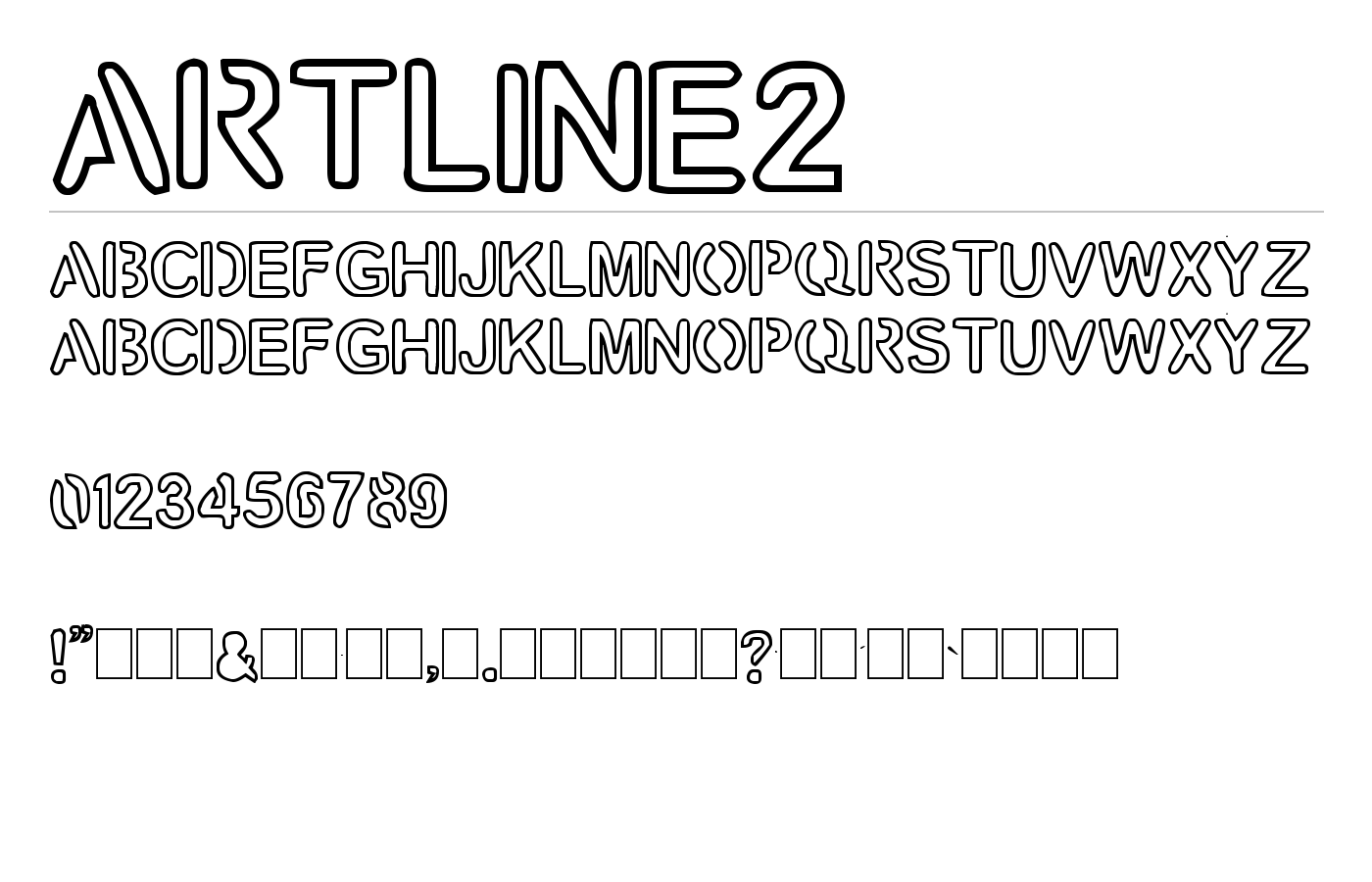
Artline2 is a modern, geometric sans serif font characterized by its outlined strokes and open, airy letterforms. It has a lightweight, playful feel with a consistent stroke width and unique angular cuts, making it ideal for creative and contemporary designs. This font works well for logos, headlines, and digital projects where a clean yet artistic look is desired.